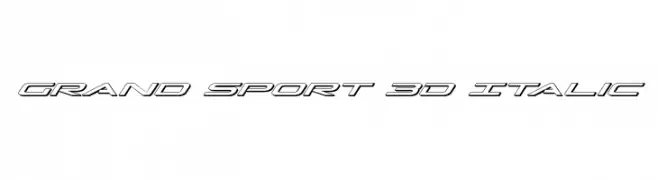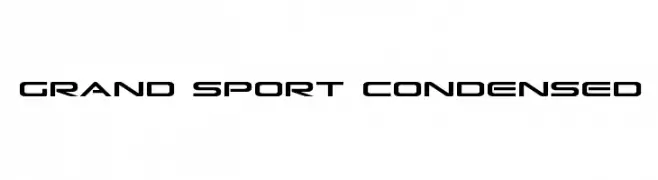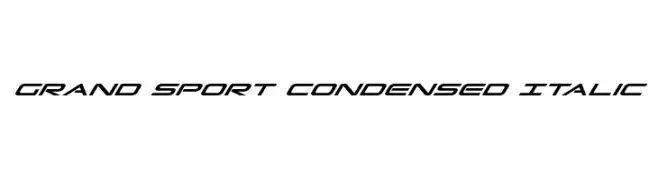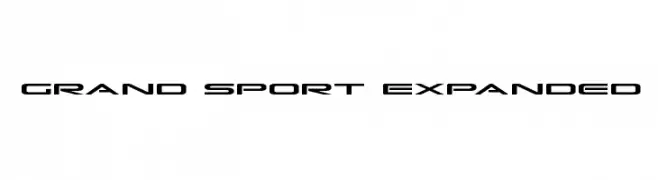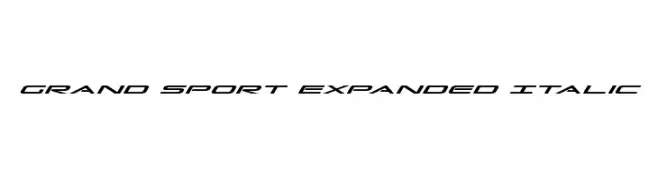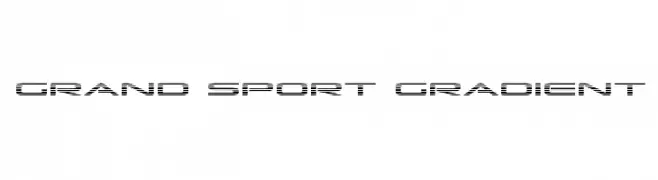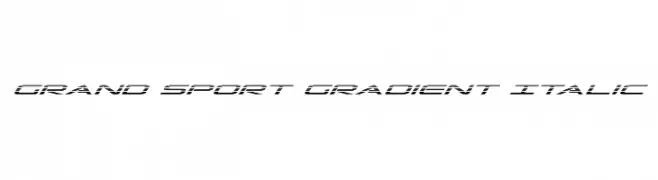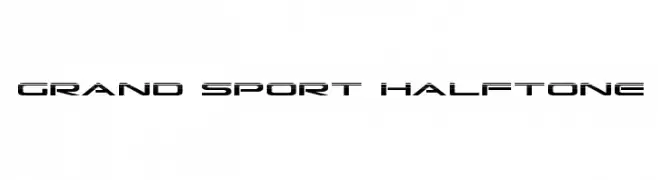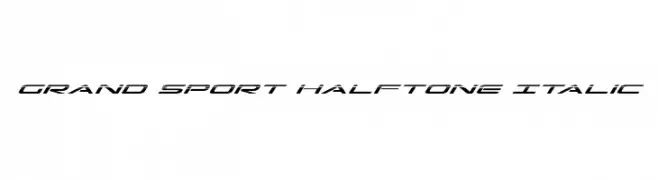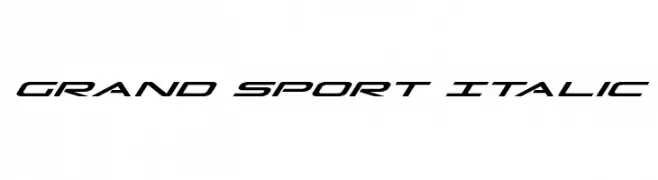
A dynamic 3D italic font with a futuristic and sporty design.
A sleek, modern, and condensed font with a futuristic aesthetic.
A sleek, italicized, and condensed font with a modern, dynamic style.
A modern, expanded font with a sporty and futuristic design.
A sleek, italicized, and expanded font with a modern, sporty look.
A modern, gradient-effect font with a sporty and dynamic design.
A dynamic, italicized font with a gradient effect, perfect for sporty and energetic designs.
A futuristic, sporty font with a halftone effect and geometric style.
A dynamic, italicized font with a sporty halftone effect.
A sleek, italicized font with a modern, sporty aesthetic.